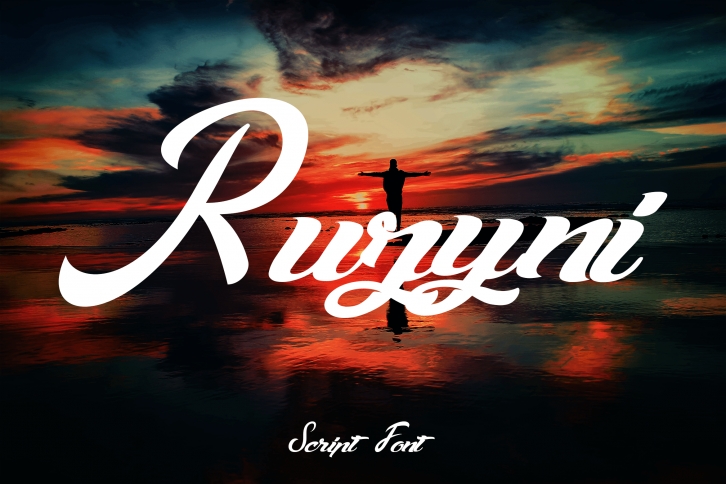
Ruzyni is a cool and bold handwritten script font. Whether you’re using it for crafts, digital design, presentations, or making greeting cards, this font has the potential to become your favorite go-to font, no matter the occasion!